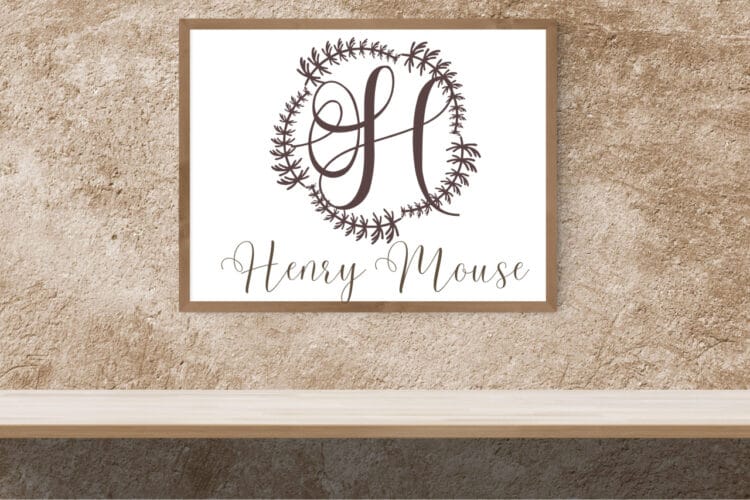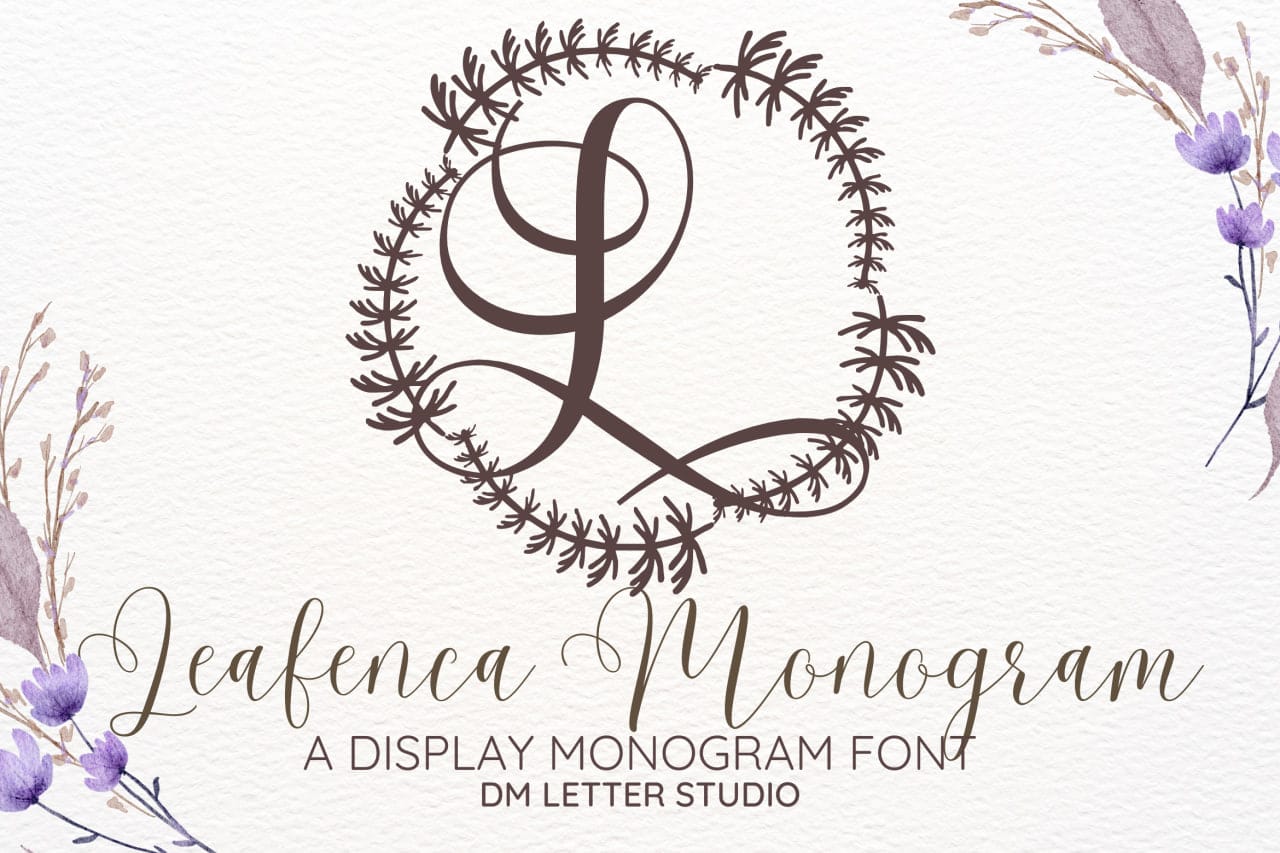
Meet Leafenca, the Monogram Font
Leafenca Monogram turns initials into elegant botanical emblems inspired by soft leaf forms and natural symmetry. The design feels calm, organic, and timeless, with balanced curves that add detail without overwhelming the letter. Each character stays clear at any size, so small tags remain readable while larger designs look graceful and refined. Use Leafenca for weddings, eco-inspired branding, stationery, keepsake gifts, and luxury packaging. As a result, your designs feel fresh, natural, and thoughtfully composed.
Fast layouts with the Leafenca Monogram Font
Start with a central initial and let the leaf-inspired form frame it naturally. After that, add names or dates using a soft serif or clean sans serif. Because Leafenca holds its shape at small sizes, labels, stickers, cards, and tags stay crisp and readable. In addition, it works beautifully with wreath frames, oval borders, thin dividers, and subtle greenery accents. Finally, save color palettes like sage and cream, olive and ivory, eucalyptus and linen, or charcoal and soft gold to reuse across product lines.
Creative uses and quick wins
Wedding monograms, invitation covers, and save-the-date cards
Logo seals, certificates, and boutique brand marks
Gift tags, stickers, and keepsake packaging
Labels for candles, soap, skincare, tea, and handmade goods
Design tips for Leafenca Monogram Font
Keep the monogram as the focal point and use a separate font for supporting text. Also, give it enough breathing room so botanical details stay readable at smaller sizes. For a premium finish, try foil stamping, embossing, or letterpress on thick or textured stock. Finally, export at 300 DPI for print and at 2× size for web so edges remain smooth everywhere.